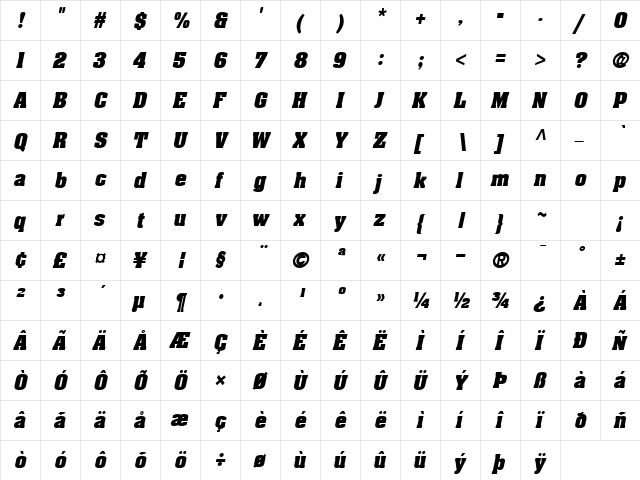
Heidelberg Italic
Design Context for Heidelberg Typeface
Heidelberg takes a measured approach to typography — its balanced proportions and neutral character make it a reliable workhorse for both digital and print work. The slanted form adds forward momentum and visual energy.
Pro Tip: Use Heidelberg for emphasis, pull quotes, and subheadings where its slanted energy can add rhythm to the layout.